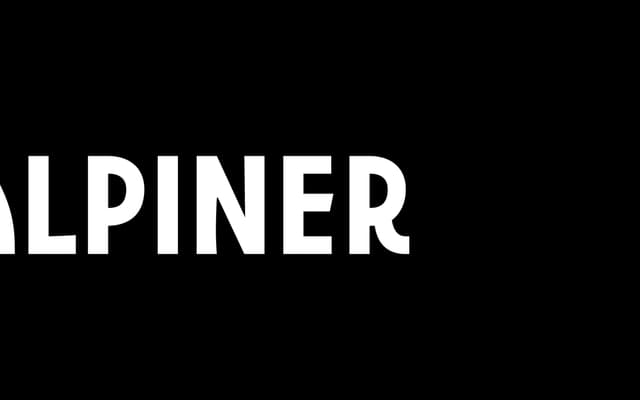
A display typeface referencing old Swiss ski poster lettering, with sharp corners and deliberate irregularities giving it a hand-drawn character.
Drawn from the visual language of vintage Swiss alpine posters, this structured display face uses sharp corners, varying stroke widths and small idiosyncratic details to suggest hand lettering within a disciplined framework. The result sits between geometric rigidity and craft imperfection, making it well suited to poster work, sporting brands and retro-inflected editorial contexts.
A structured display typeface with hand-rendered qualities, sharp corners and irregular widths place it firmly in the display category, drawing from vintage alpine poster lettering traditions.